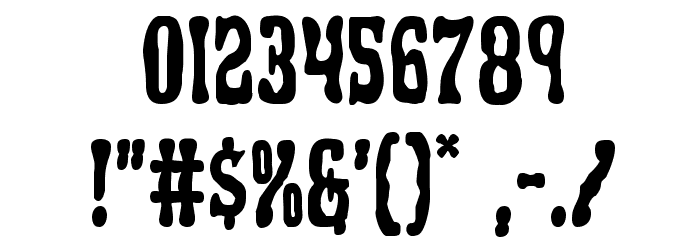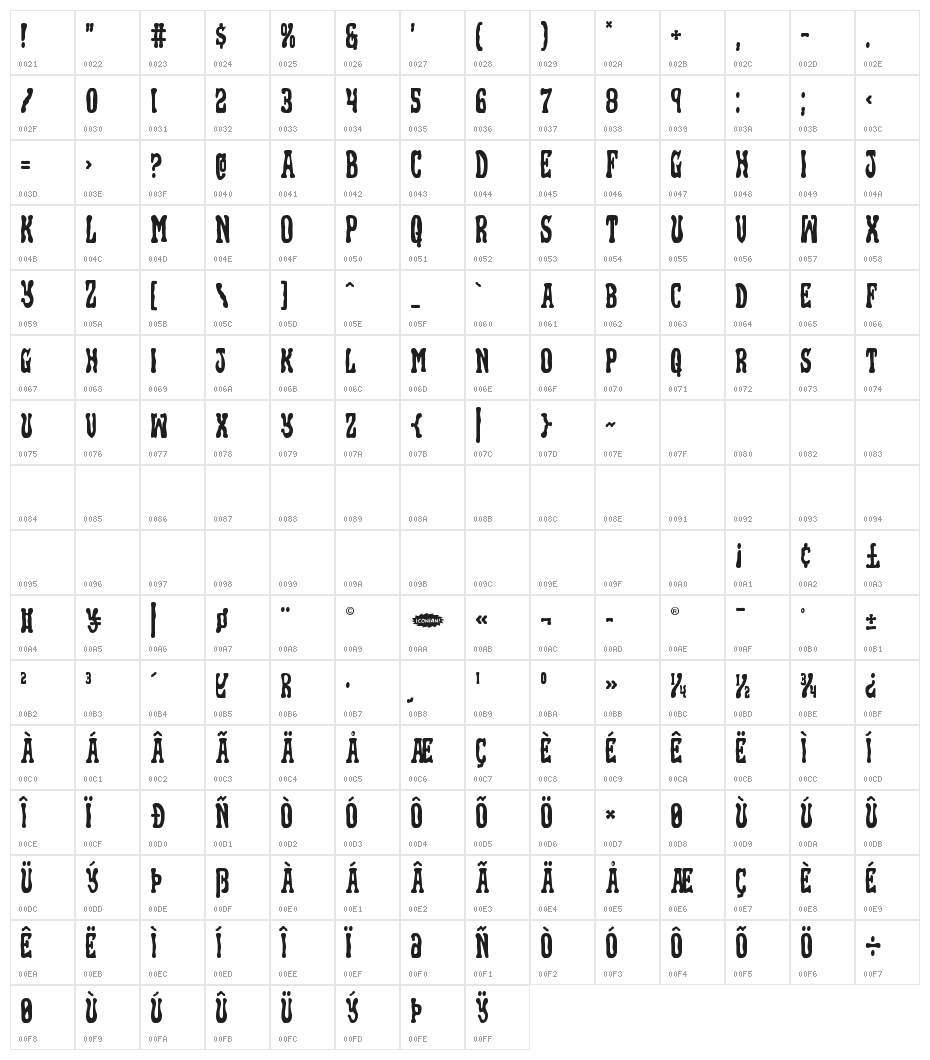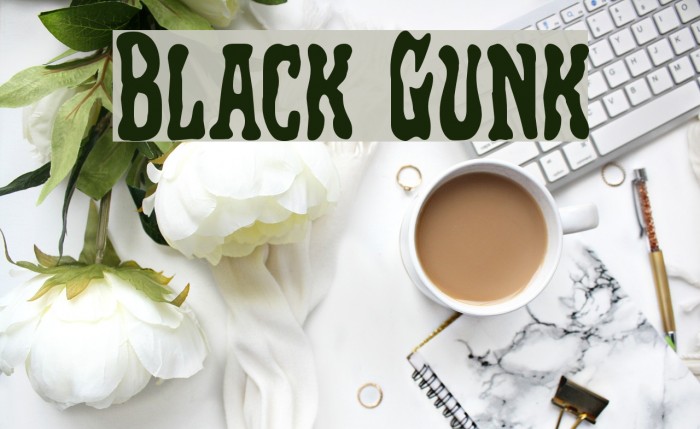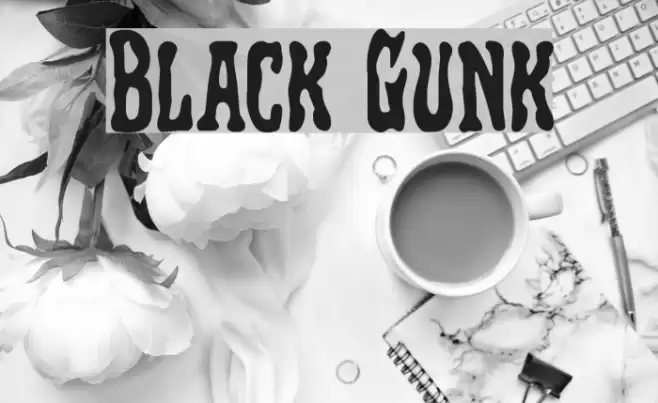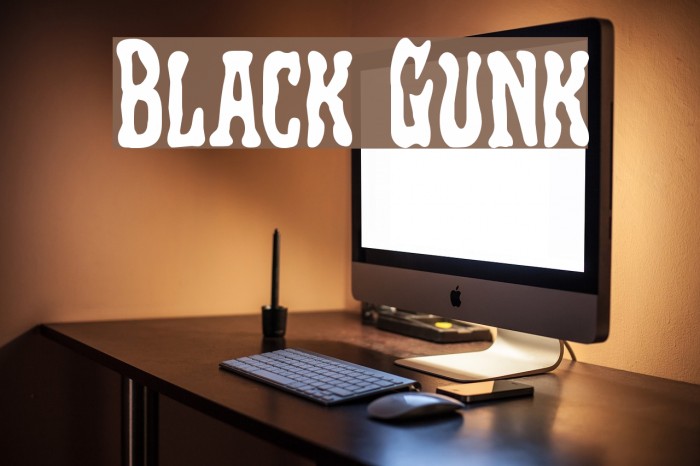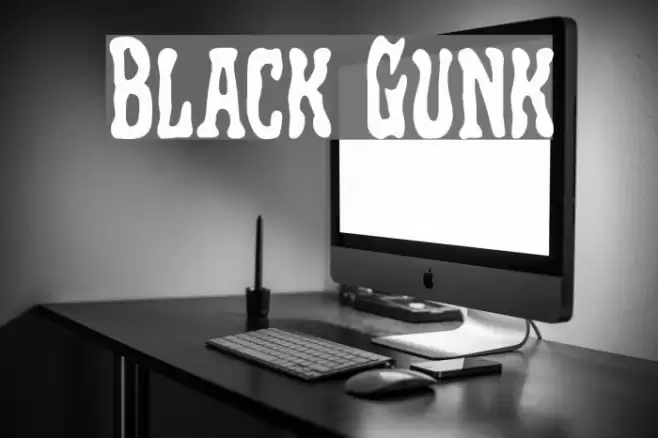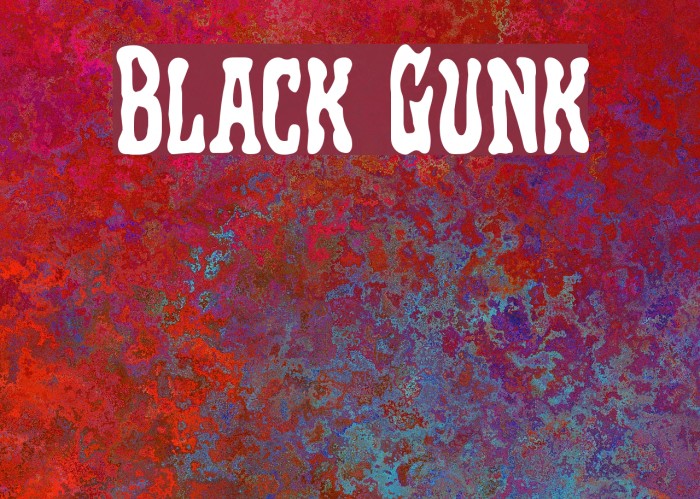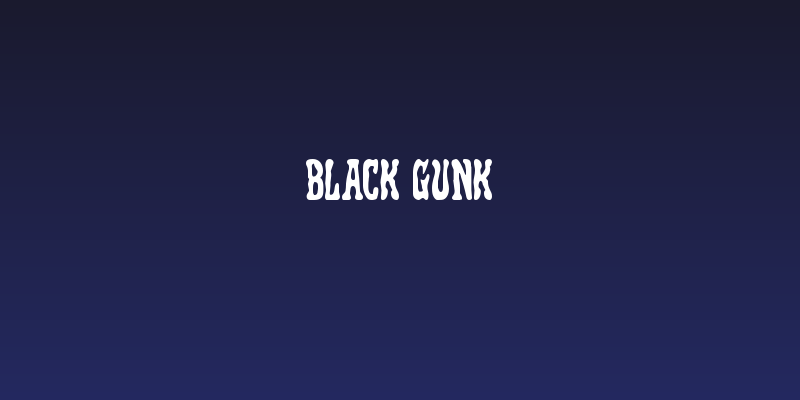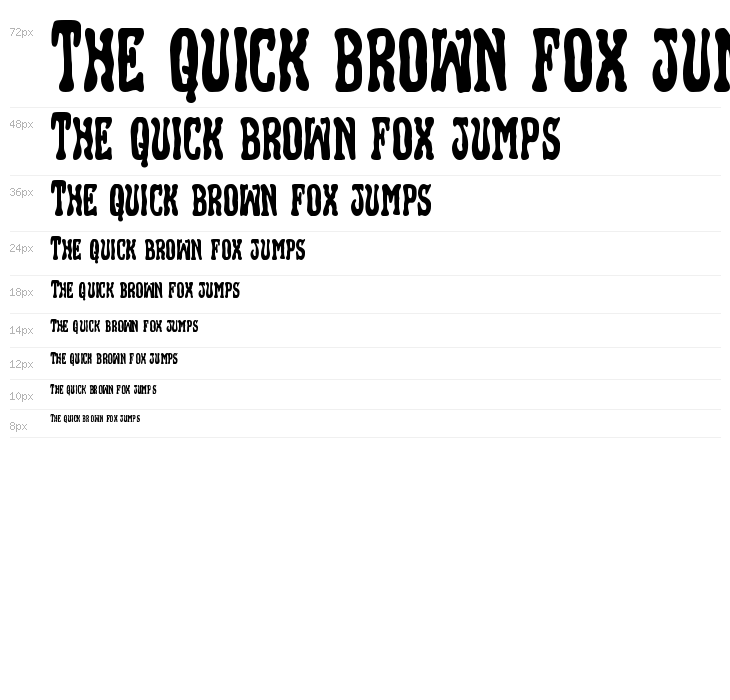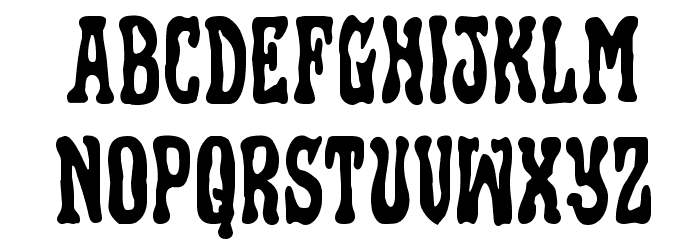
Black Gunk Font
Black Gunk Description
This font features a bold and heavy design with a unique, organic appearance. The characters have a thick, uneven stroke that gives them a playful and somewhat rugged look. The uppercase and lowercase letters maintain a consistent style, with rounded edges and a slightly irregular form that suggests a hand-drawn quality. The numbers and special characters follow the same design principles, ensuring a cohesive appearance across all glyphs. This font's distinctive style makes it stand out, offering a creative and unconventional aesthetic.
| Proposed Projects | Ideal for posters, album covers, or any project requiring a bold, artistic touch. |